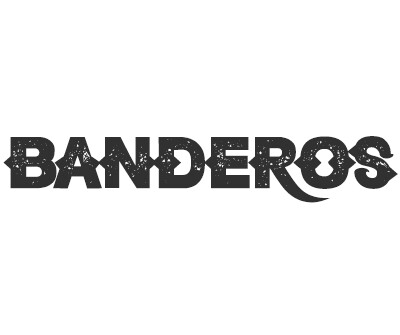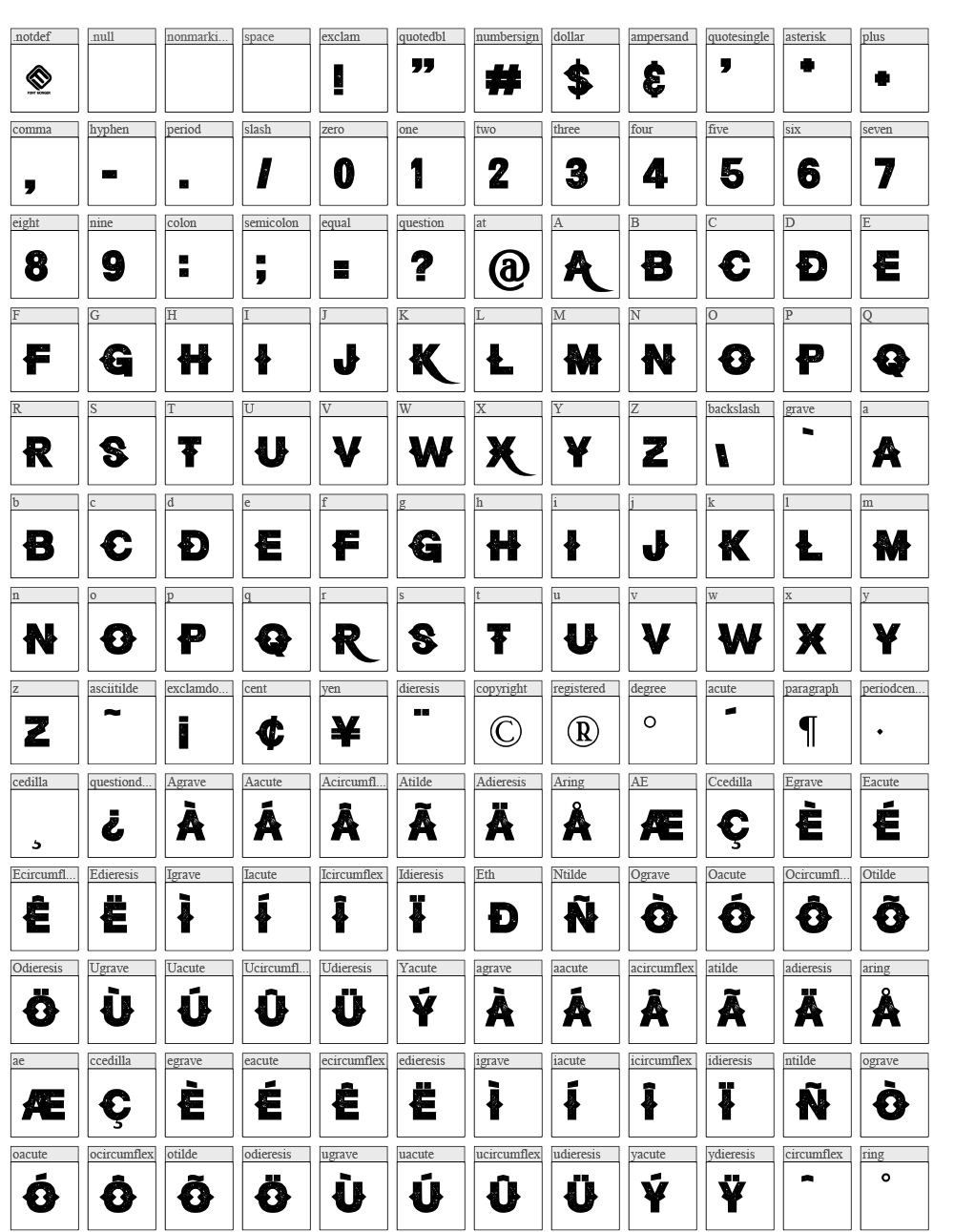
Banderos: An eroded font with a wild west feel, inspired by the spirit of frontier adventure. Its rough and tumble letters, complete with distressed edges and distress, evoke the rugged landscape of the American frontier, while its hand-drawn quality gives each letter a sense of authenticity and character. Ideal for creating designs for western-themed events, movies, or anything else that requires a touch of the wild west, Banderos font is sure to bring a sense of rough-and-tumble adventure to any project.
Uppercase: Yes
Lowercase: Same as uppercase
Numbers: Yes
Punctuation: Yes
Accents: Yes
Theme: Eroded, Western